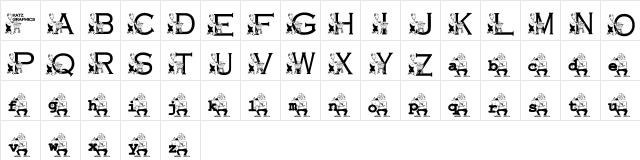
KG GROCERY Regular Font Preview
KG GROCERY Regular
Design Context for KG GROCERY Typeface
KG GROCERY is a composed and adaptable typeface that performs quietly and consistently across a wide range of design contexts.